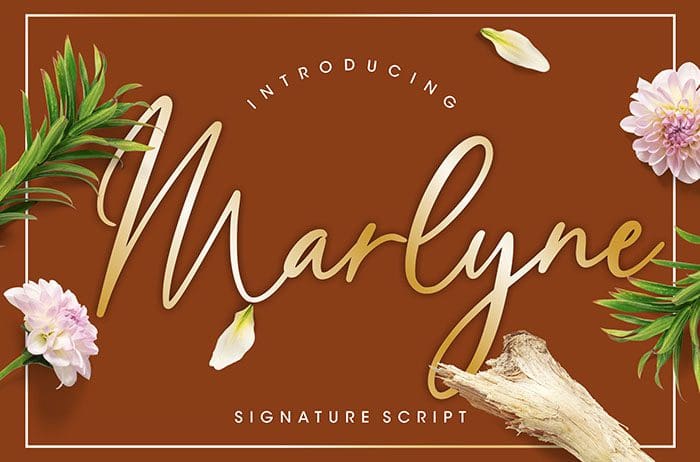
Marlyne Script Font
Marlyne is signature handwritten Script Font that perfect for your latest project. Marlyne is perfect for branding projects, logo, wedding designs, social media posts, advertisements and more. Thanks to Creatype Studio for sharing this font! Take a look at this portfolio for more of his stunning fonts.